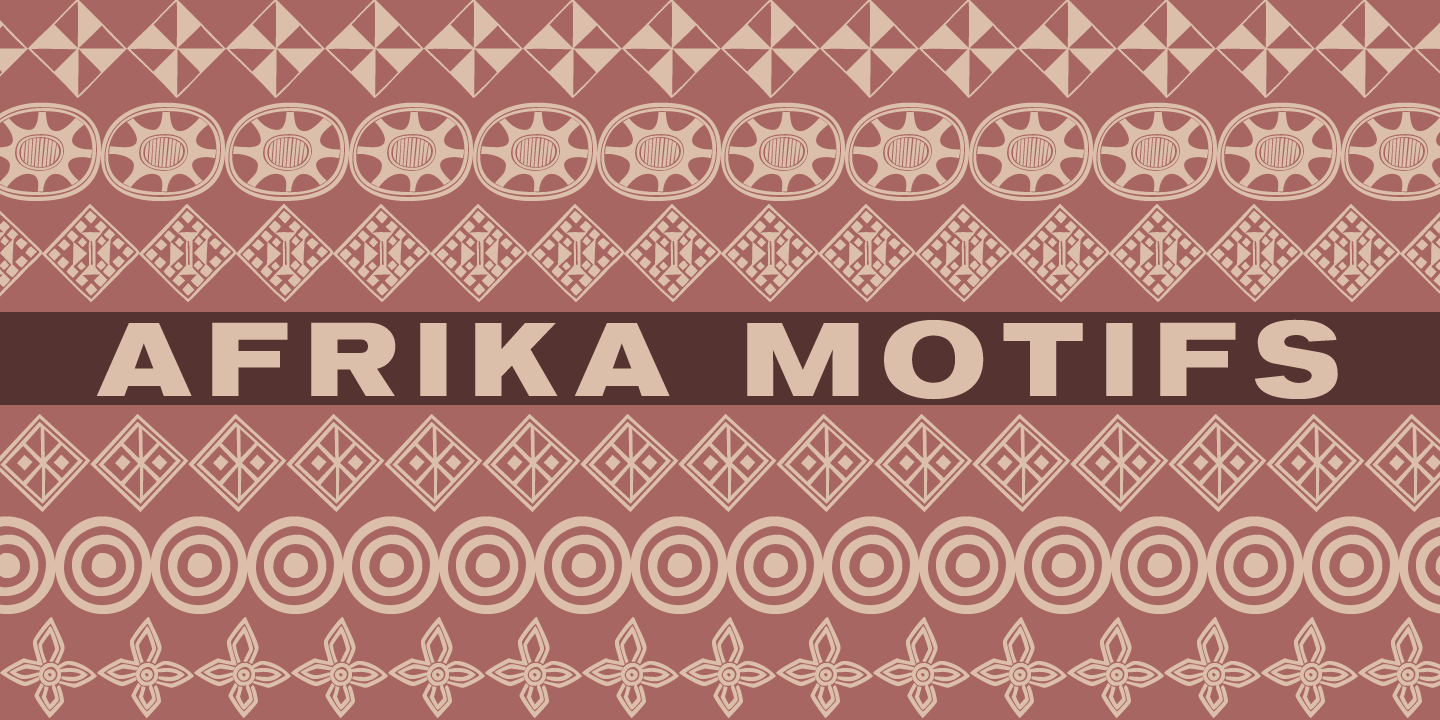
Afrika Borders
Afrika Borders™ is a delightful collection of over 50 border patterns based on geometric motifs from various African tribes, including the Ashanti, Bushongo, and Zulu. Use for stationery, greeting cards, etc. See also Afrika Motifs.
Afrika Motifs
Afrika Motifs™ is a delightful collection of over 50 border patterns based on geometric motifs from various African tribes, including the Ashanti, Bushongo, and Zulu. Use for stationery, greeting cards, etc. See also Afrika Borders.
Agency Gothic CT Inline
Originally designed by American type designer Morris Fuller Benton in 1933, Agency Gothic is a wonderful, narrow, squarish art deco typeface.
Agency Gothic Condensed
Originally designed by American type designer Morris Fuller Benton in 1933, Agency Gothic is a wonderful, narrow, squarish art deco typeface.
Agency Gothic CT Light
Originally designed by American type designer Morris Fuller Benton in 1933, Agency Gothic is a wonderful, narrow, squarish art deco typeface.
Agency Gothic CT Medium
Originally designed by American type designer Morris Fuller Benton in 1933, Agency Gothic is a wonderful, narrow, squarish art deco typeface.
Agency Gothic CT Bold
Originally designed by American type designer Morris Fuller Benton in 1933, Agency Gothic is a wonderful, narrow, squarish art deco typeface.
Agency Gothic CT Open
Originally designed by American type designer Morris Fuller Benton in 1933, Agency Gothic is a wonderful, narrow, squarish art deco typeface.
Ampersands One
Ampersands One™ is one of a set of two fonts, each font containing 101 decorative ampersands. These fonts include ampersands from various display fonts in the CastleType Library as well as antique, ornate and calligraphic ampersands.
Ampersands Two
Ampersands Two™ is one of a set of two fonts, each font containing 101 decorative ampersands. These fonts include ampersands from various display fonts in the CastleType Library as well as antique, ornate and calligraphic ampersands.
Brasileiro
Brasileiro™, a CastleType Original, is an art deco design inspired by the seven letters used for the logotype of the Brazilian magazine 'Para Todos' from the 1920s. Described as "great fun" and "impressionante e exuberante."
Carisma Light
Carisma™, a CastleType Original, is the perfect typeface for an understated, modern, sophisticated look. All weights of Carisma include small caps and oldstyle numerals. See also Carisma Gothic.
Carisma Regular
Carisma™, a CastleType Original, is the perfect typeface for an understated, modern, sophisticated look. All weights of Carisma include small caps and oldstyle numerals. See also Carisma Gothic.
Carisma Medium
Carisma™, a CastleType Original, is the perfect typeface for an understated, modern, sophisticated look. All weights of Carisma include small caps and oldstyle numerals. See also Carisma Gothic.
Carisma DemiBold
Zuboni Stencil
Zuboni Stencil is a bold, uppercase-only typeface based on a Russian design from around 1920 (original designer unknown). Its extensive character set supports most European languages that use the Latin or Cyrillic alphabets as well as modern (monotonic) Greek.